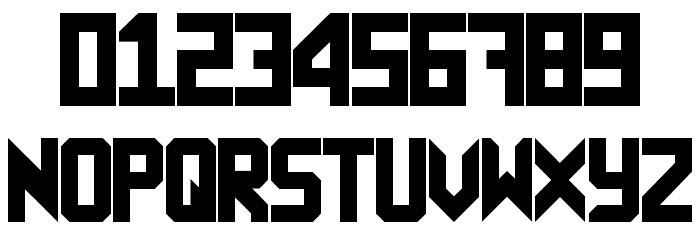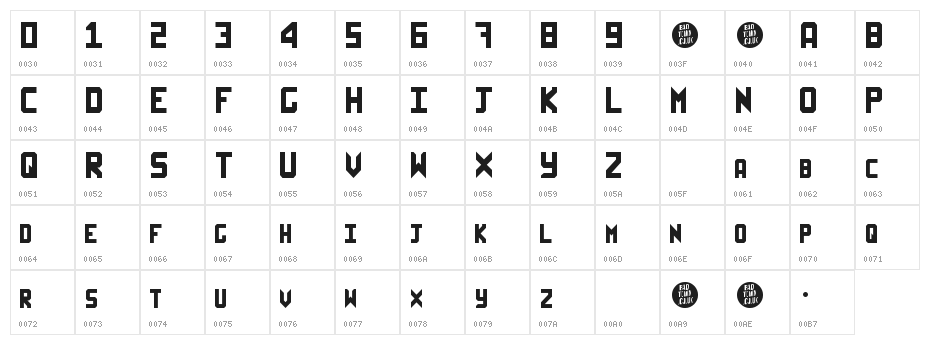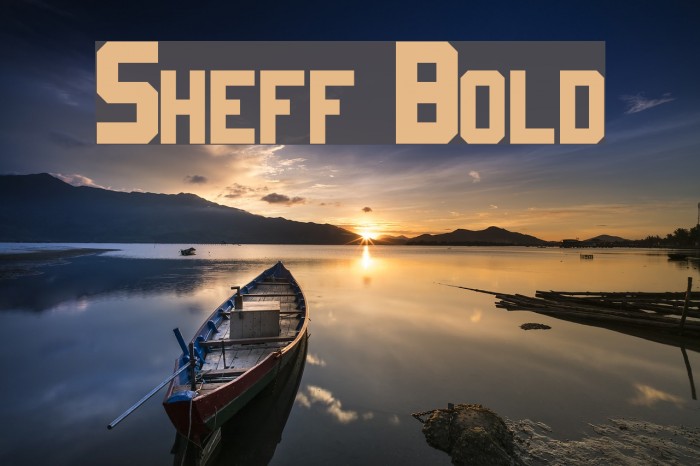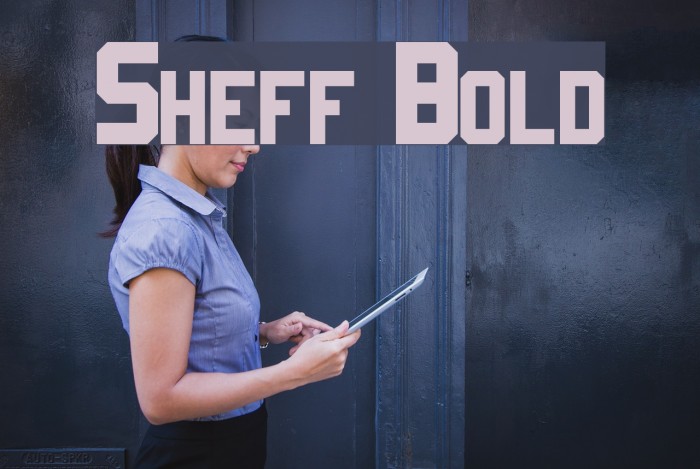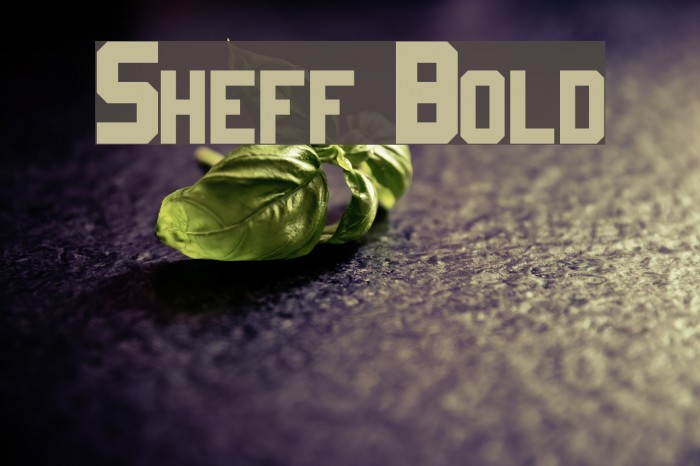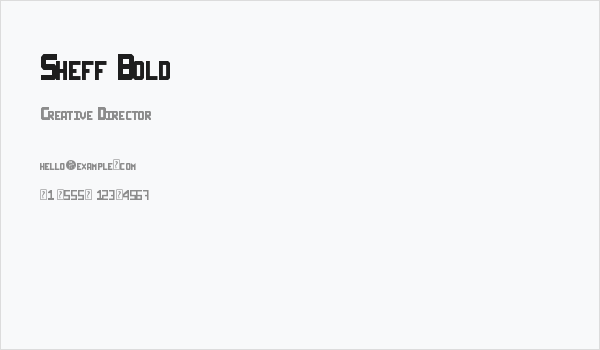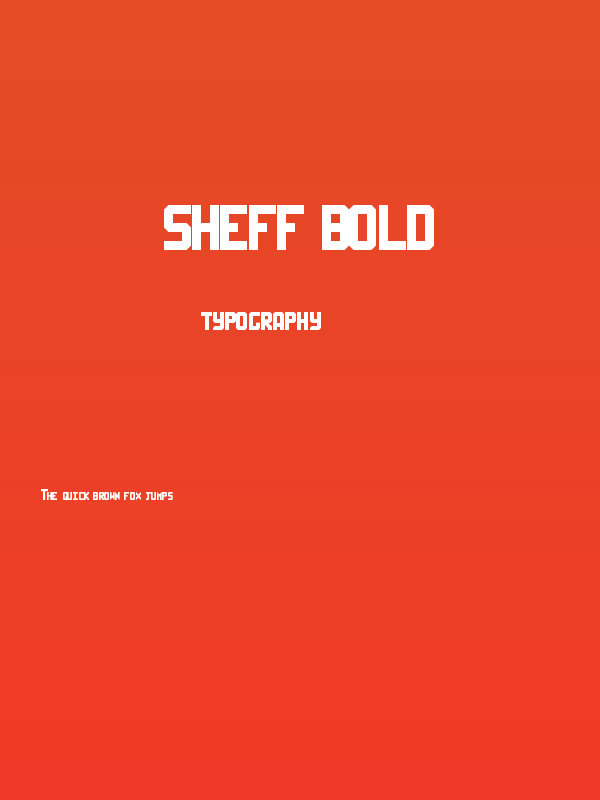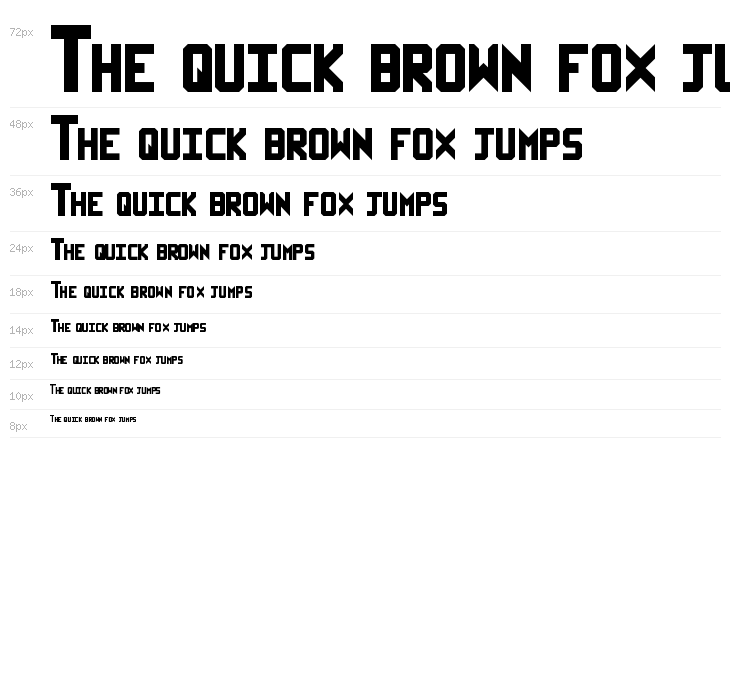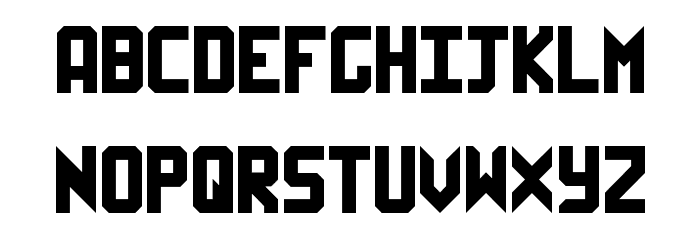
Sheff Bold Font
This font exhibits a bold and geometric style, characterized by its blocky and angular letterforms. Each character is crafted with sharp edges and a uniform thickness, creating a strong and impactful visual presence. The uppercase letters are particularly striking, with a consistent height and width that emphasize their boldness. The numbers and special characters maintain the same geometric design, ensuring a cohesive look across all elements. This font's distinct style makes it ideal for projects that require a modern and assertive aesthetic.
A bold, geometric font with sharp, angular letterforms.
• Proposed Projects: Ideal for branding, posters, headlines, and any design requiring a strong, modern impact.